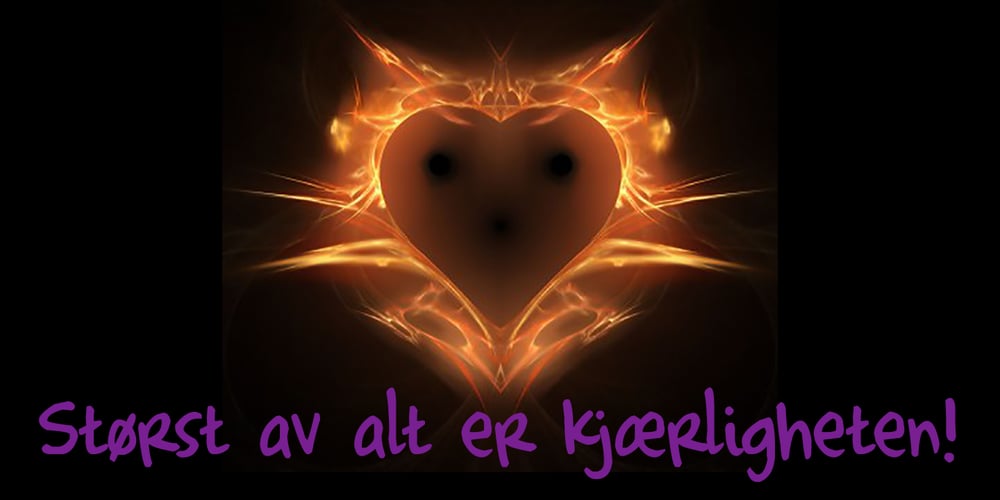
Complete In Him Pro Font Family was designed by Roger S. Nelsson, Kimberly Geswein and published by CheapProFonts. Complete In Him Pro contains 1 styles and family package options. A bold and beautiful handwriting – perfect for setting personal and meaningful messages. Some glyph shapes and stroke thicknesses has been normalized (to make the text more even), and I have added some kerning – not too much though, I wanted to keep the liveliness of it. ALL fonts from CheapProFonts have very extensive language support: They contain some unusual diacritic letters (some of which are contained in the Latin Extended-B Unicode block) supporting: Cornish, Filipino (Tagalog), Guarani, Luxembourgian, Malagasy, Romanian, Ulithian and Welsh. They also contain all glyphs in the Latin Extended-A Unicode block (which among others cover the Central European and Baltic areas) supporting: Afrikaans, Belarusian (Lacinka), Bosnian, Catalan, Chichewa, Croatian, Czech, Dutch, Esperanto, Greenlandic, Hungarian, Kashubian, Kurdish (Kurmanji), Latvian, Lithuanian, Maltese, Maori, Polish, Saami (Inari), Saami (North), Serbian (latin), Slovak(ian), Slovene, Sorbian (Lower), Sorbian (Upper), Turkish and Turkmen. And they of course contain all the usual “western” glyphs supporting: Albanian, Basque, Breton, Chamorro, Danish, Estonian, Faroese, Finnish, French, Frisian, Galican, German, Icelandic, Indonesian, Irish (Gaelic), Italian, Northern Sotho, Norwegian, Occitan, Portuguese, Rhaeto-Romance, Sami (Lule), Sami (South), Scots (Gaelic), Spanish, Swedish, Tswana, Walloon and Yapese.